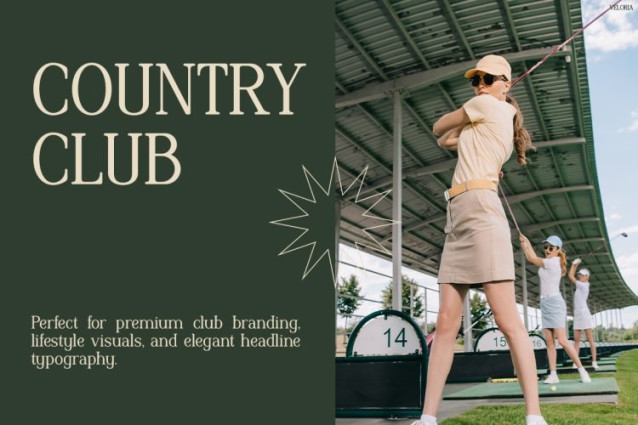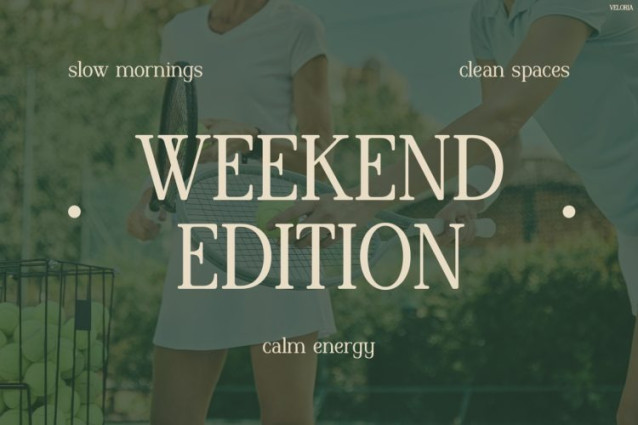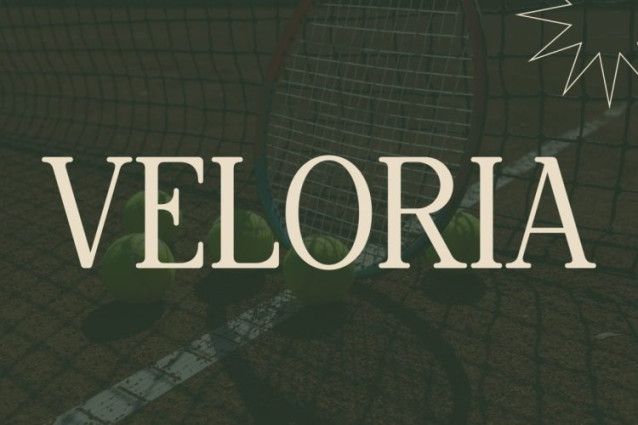
Veloria Font
Veloria Font is a refined and elegant typeface designed to elevate modern lifestyle visuals with a premium touch. At first glance, its graceful serif details and balanced proportions create a timeless and sophisticated look. Moreover, the smooth curves combined with sharp, clean edges give it a perfect harmony between classic beauty and contemporary style. Because of this, every word feels polished and luxurious. In addition, its high readability ensures your message stays clear while still looking stylish. As a result, Veloria becomes a perfect choice for designs that aim to feel calm, aesthetic, and high-end.
Instagram Font Veloria is a modern serif display font crafted for elegant and minimal design projects. Not only does it feature stylish letterforms, but it also pairs beautifully with neutral tones, lifestyle photography, and clean layouts. Furthermore, its versatility allows it to shine in both bold headlines and subtle text compositions. Therefore, whether you are creating branding, social media content, or editorial layouts, Veloria adds a refined and professional touch. Ultimately, it transforms simple text into visually stunning and premium design elements.